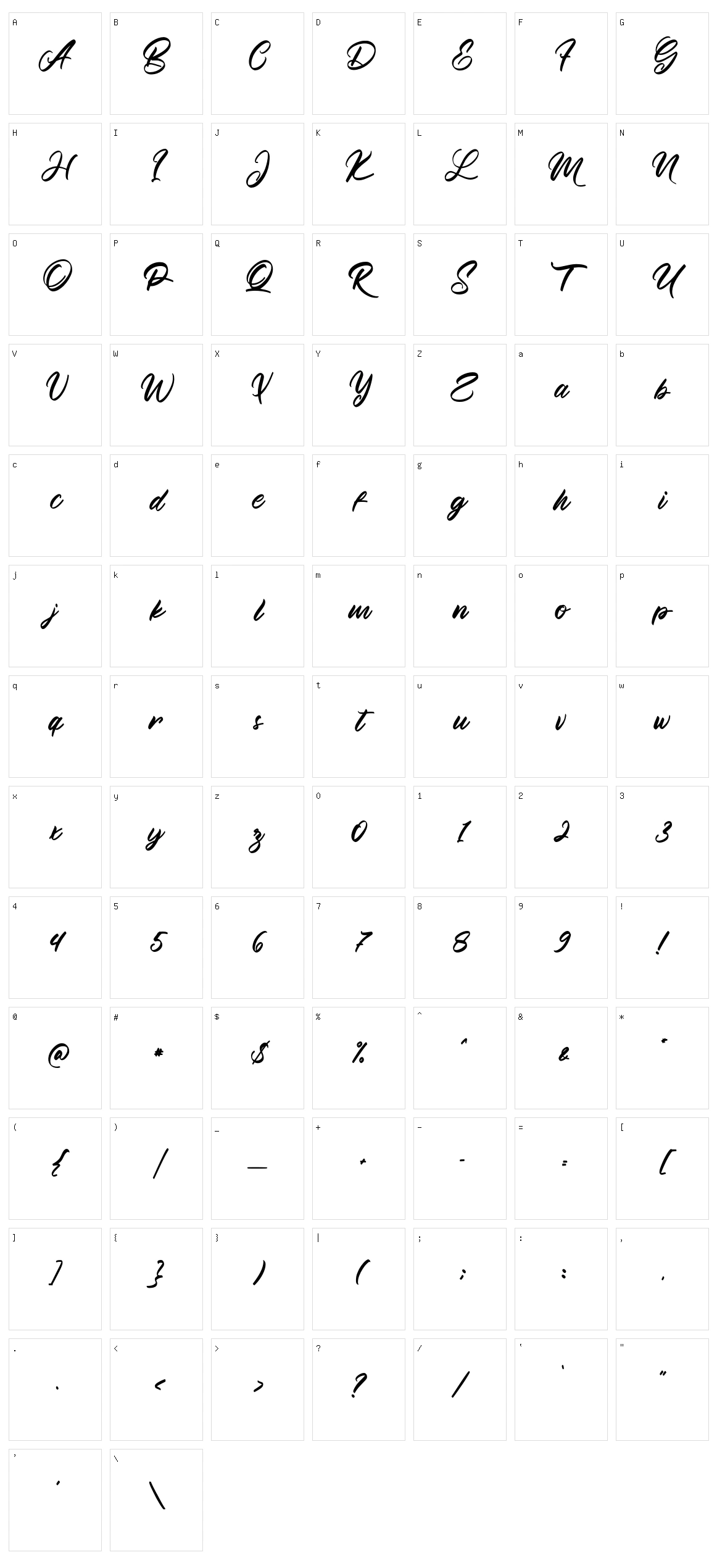
The free font Manthesy is carefully designed by StringLabs Creative Studio, showcasing a thoughtful balance of creativity and usability and falls under the Script font style. When you download the ZIP file, it contains only 68.93 KB of font files, making it lightweight and quick to download. Please review the license details below to understand permitted usage and distribution rights. If license information is not available, we recommend using this font for personal projects only or contacting the author directly for commercial usage permissions.